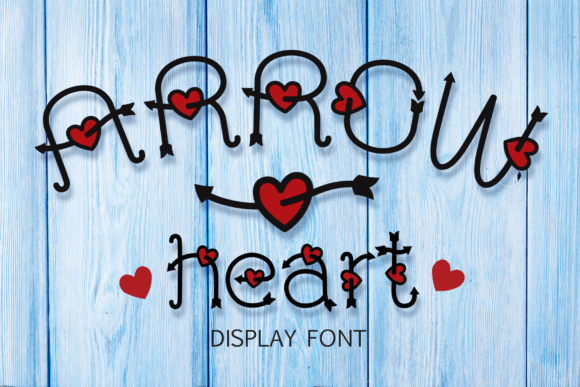
Unleash the Love in Your Designs with Arrow Heart Font - A Font That Captures the Essence of Romance
Welcome to the world of heartfelt typography, where every letter is a brushstroke of affection and every word a melody of love. Introducing Arrow Heart Font, a stunning display font that radiates warmth, joy, and a touch of playful charm. Created by the talented 1515AngelStudio, this font is more than just a collection of characters; it's a gateway to expressing your love and passion in a unique and captivating way.
With its charming curves, playful strokes, and an undeniable aura of romance, Arrow Heart Font is the perfect choice for adding a touch of affection to any design project. Whether you're creating logos, headlines, titles, or any other visual element that needs a touch of heartfelt charm, this font will make your designs come alive with love and warmth.
Immerse yourself in a world of romantic expression with Arrow Heart Font. Let your designs speak the language of love, capturing the hearts of your audience with every word. Its versatility and elegant style make it the ideal choice for a wide range of projects, from wedding invitations and Valentine's Day cards to heartfelt posters and social media graphics.